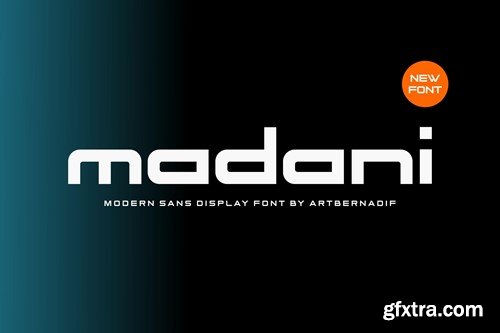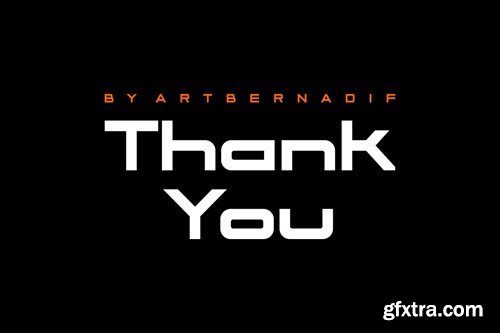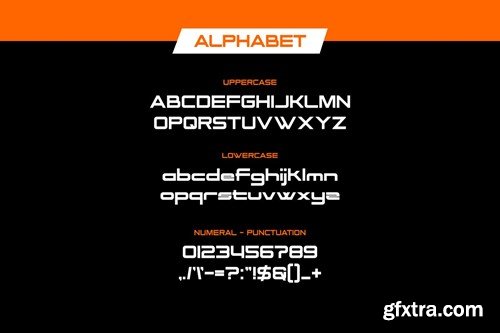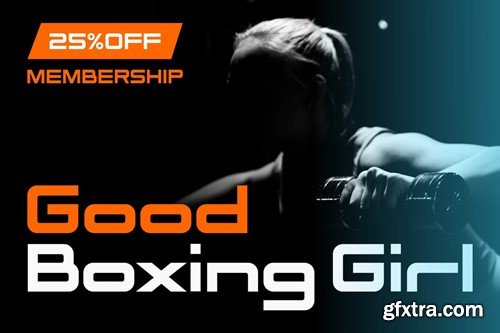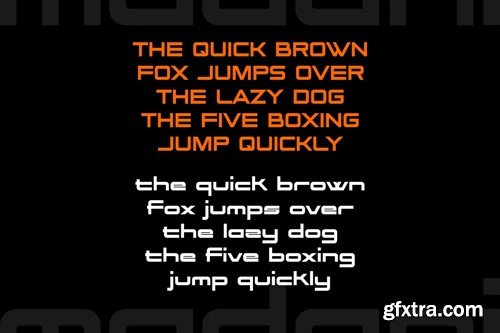
马迪纳 - 现代Sans无衬线字体 BGRY65C
Madani - Modern Sans Display Font BGRY65C
Madani - Modern Sans Display Font
Introducing our new product Madani Font Modern Sans Display Font
Madani Font Modern Font is a bold and authentic display font. The font is suitable for any branding project like logo, t-shirt printing, esport, and many more. outstanding in a wide range of contexts.